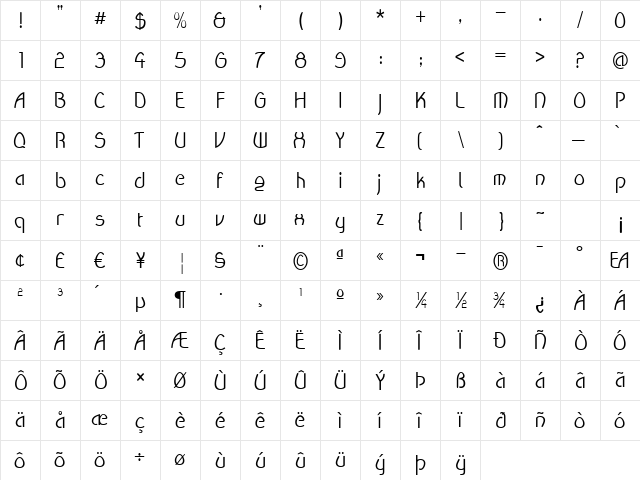
Wanda Regular
Design Context for Wanda Typeface
Wanda takes a measured approach to typography — its balanced proportions and neutral character make it a reliable workhorse for both digital and print work.